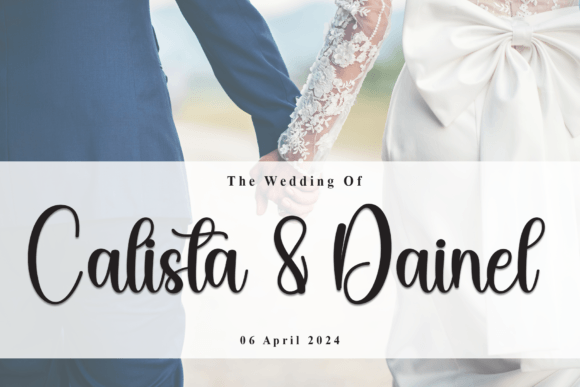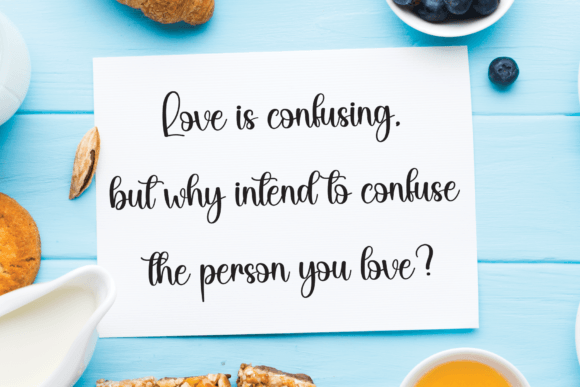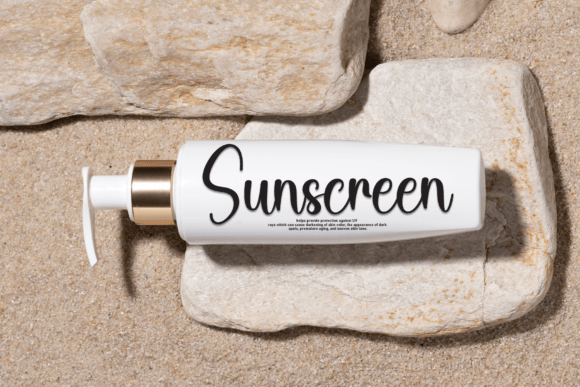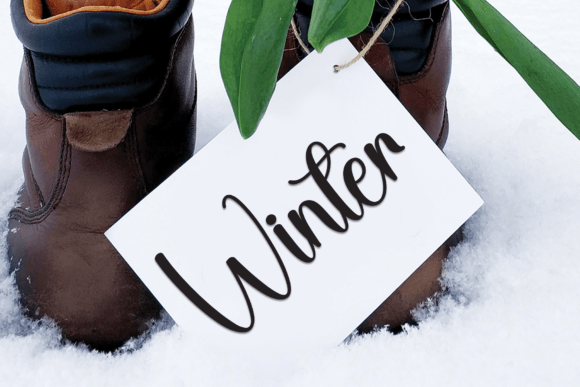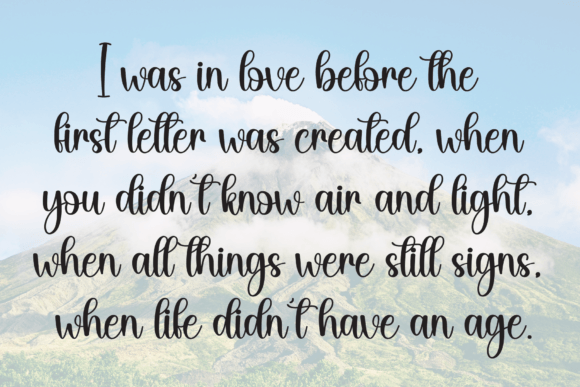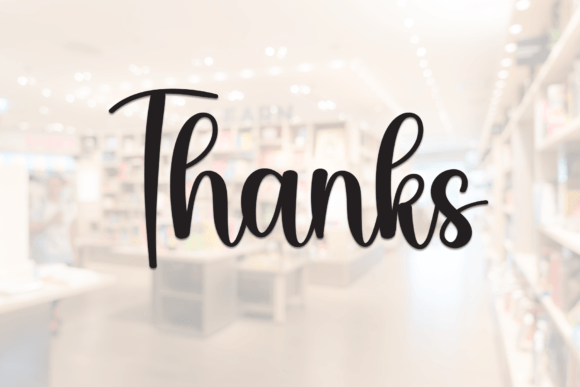
The Perfect Script: Unlocking the Magic of Bookstore Font
Have you ever found yourself lost in a sea of papers, searching for the perfect font to give your design that extra oomph? I know I have. And then, like a ray of sunshine on a cloudy day, you stumble upon it – the font that makes your design sing. For me, that font was Bookstore, a stunning script font that adds a touch of elegance to any project.
Bookstore Font is more than just a font – it’s a statement piece that can elevate your designs from ordinary to extraordinary. Whether you’re creating wedding invitations, thank you cards, or business cards, this font is sure to make a lasting impression. Its versatility and sophistication make it a valuable asset for designers looking to add a handwritten touch to their work.
Bookstore Font Key Features
- Font Family: Bookstore Font is a unique, custom-designed font family consisting of multiple weights and styles.
- Character Count: The font family includes over 1,000 glyphs, covering a wide range of languages and characters.
- Optical Size: Designed to be used at various sizes, from 8pt to 24pt, with optimized legibility and readability at each size.
- Resolution: Suitable for both print and digital use, with high-resolution support up to 300 DPI for print and 96 DPI for digital applications.
- Unique Characteristics: Features a distinctive, elegant design with subtle flair and flair-like terminals, giving it a sophisticated and classic feel.
Bookstore Font Review
Overall, I’m quite pleased with the Bookstore Font, but there are some aspects that could be improved. Here are my thoughts.
- The Bookstore Font has a charming, vintage aesthetic that’s perfect for book-related projects.
- The font is highly legible, even at smaller sizes, making it suitable for body text.
- The font family includes a range of weights and styles, giving you flexibility in your design choices.
Limitsations ⚠️
- The Bookstore Font can feel a bit too ornate for some projects, potentially overwhelming the design.
- The font may not be suitable for projects that require a more modern or minimalist look.
- Some characters may require manual adjustments or kerning to achieve optimal spacing.
In conclusion, while the Bookstore Font has its limitations, its unique charm and versatility make it a solid choice for the right projects. With some careful consideration of its strengths and weaknesses, you can create beautiful designs that showcase this font to its best advantage.
Tips for Getting the Most Out of Bookstore Font
Bookstore Font is perfect for creating a vintage or classic look. To get the most out of it, try pairing it with other serif fonts and using it for headings and titles.
Common use cases for Bookstore Font include:
- Book covers and book titles
- Vintage-style advertisements
- Classical music or literature-inspired designs
Didot is a classic serif font that exudes elegance and sophistication. It’s ideal for use in high-end designs, luxury brands, and publications that demand a touch of refinement. When to use: Fashion magazines, luxury catalogs, and upscale websites.
Didot is more refined and elegant compared to Bookstore Font, which is more casual and informal. While Bookstore Font is great for a cozy bookstore atmosphere, Didot is better suited for more upscale and sophisticated settings.
Playfair Display is a luxurious serif font that’s perfect for adding a touch of drama and sophistication to designs. It’s ideal for use in high-end branding, luxury packaging, and special occasion invitations. When to use: Luxury brands, high-end packaging, and special occasion invitations.
Playfair Display is more ornate and luxurious compared to Bookstore Font, which is more straightforward and simple. While Bookstore Font is great for a casual bookstore atmosphere, Playfair Display is better suited for more formal and elegant settings.
Merriweather is a classic serif font that’s perfect for use in body text and titles. It’s ideal for use in publications, websites, and branding that require a clean and readable font. When to use: Publications, websites, and branding that require a clean and readable font.
Q: What is the recommended font size and line spacing for Bookstore Font?
For optimal readability, we recommend using a font size between 12pt and 14pt for body text, with a line spacing of 1.5 to 2 times the font size. This will ensure a clear and comfortable reading experience for your audience.